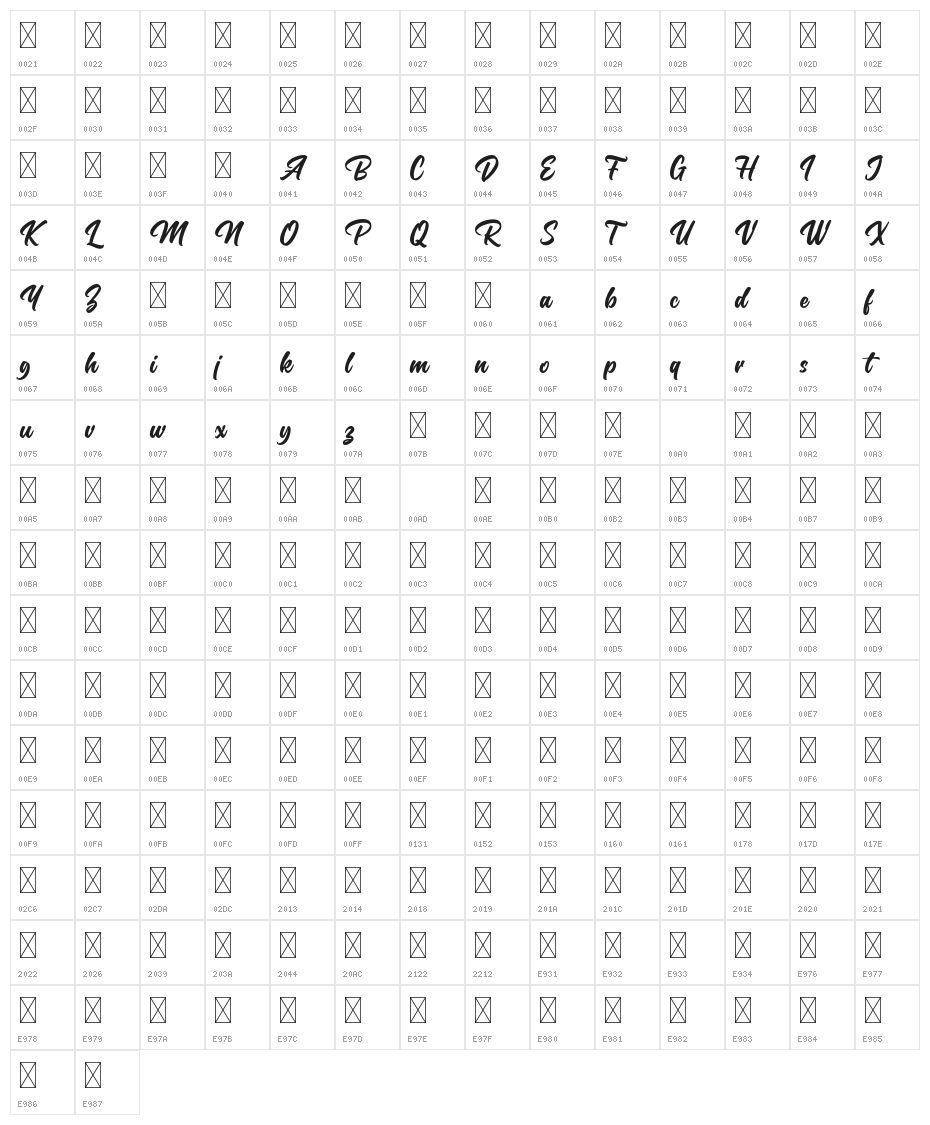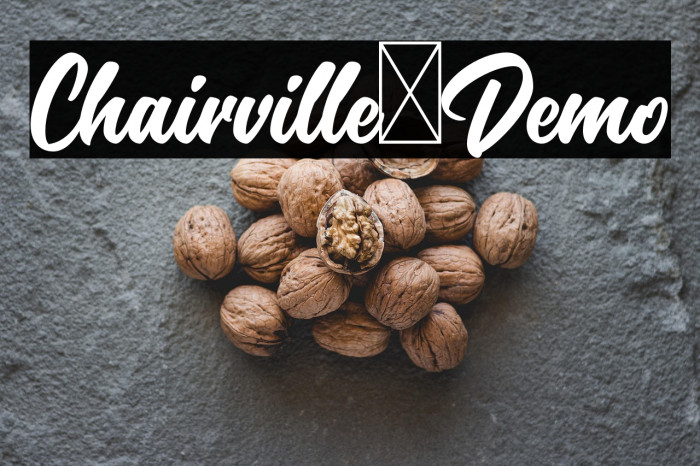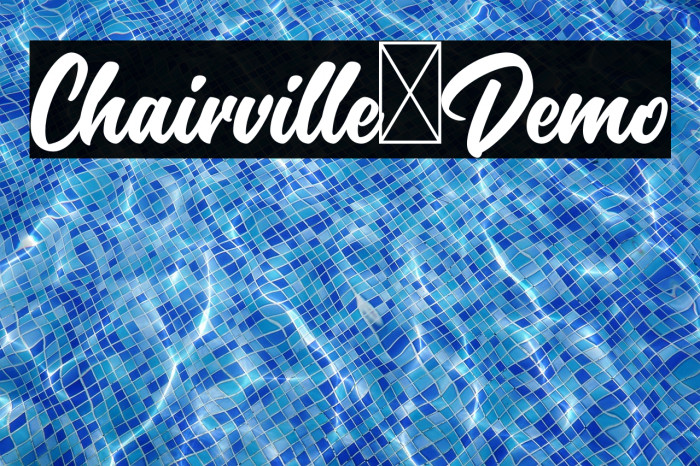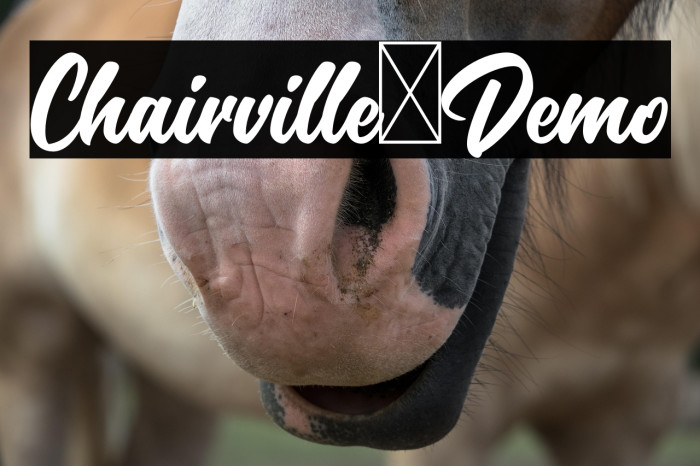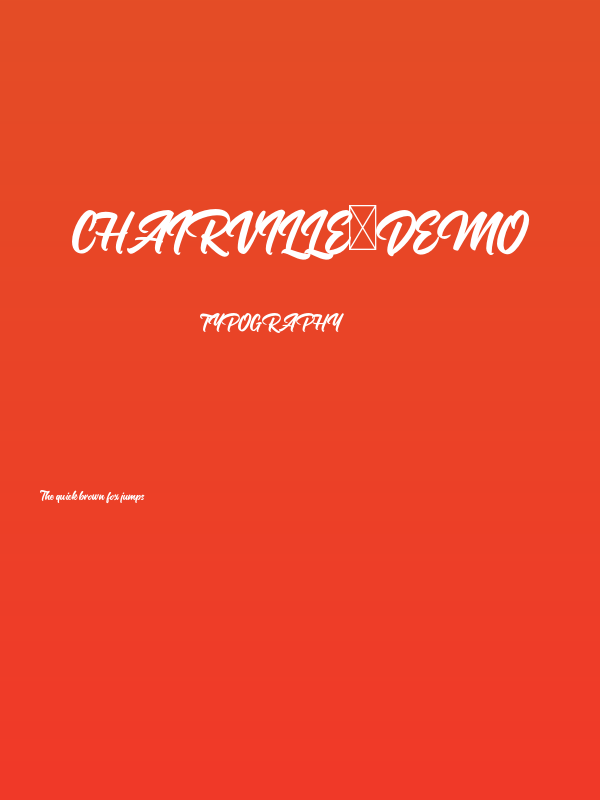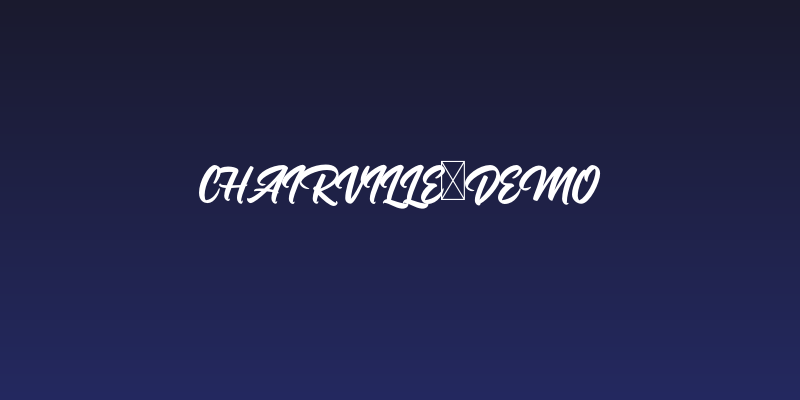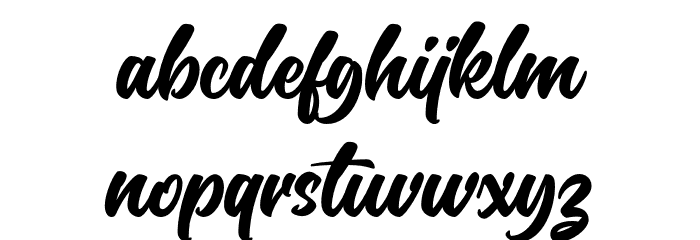
Chairville-Demo Font
Chairville-Demo Description
This font features a bold and expressive script style, characterized by its flowing, cursive letterforms that convey a sense of elegance and dynamism. The uppercase letters are particularly striking, with sweeping curves and dramatic flourishes that make a strong visual impact. The lowercase letters maintain a consistent style, with smooth connections and rounded forms that enhance readability. The font's overall appearance is both stylish and versatile, making it suitable for a variety of design applications. Its bold weight and high contrast between thick and thin strokes add to its visual appeal, while the character spacing is relatively tight, contributing to its cohesive look.